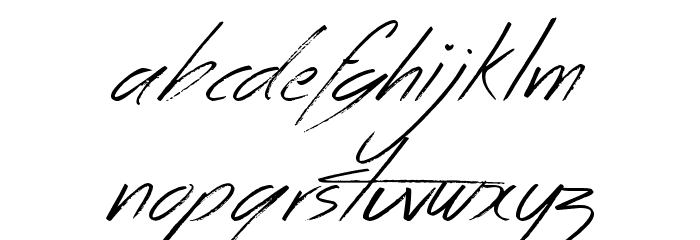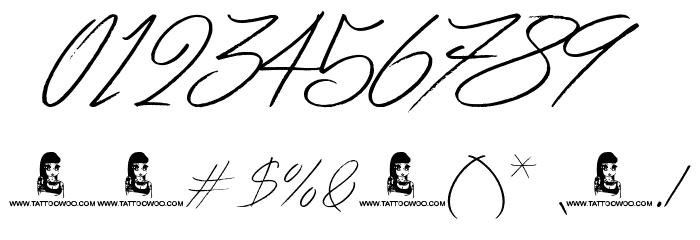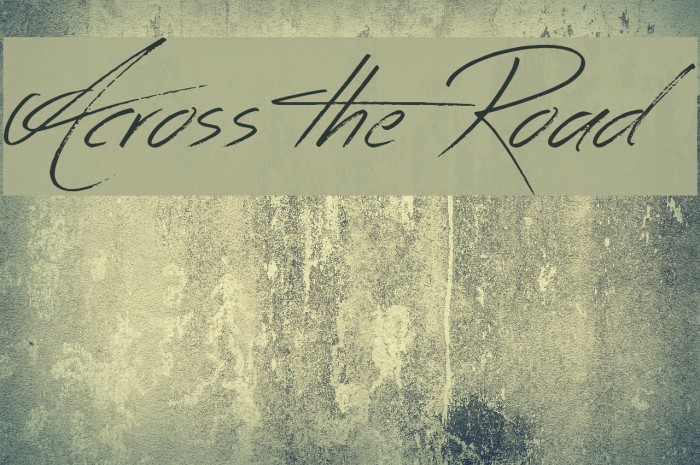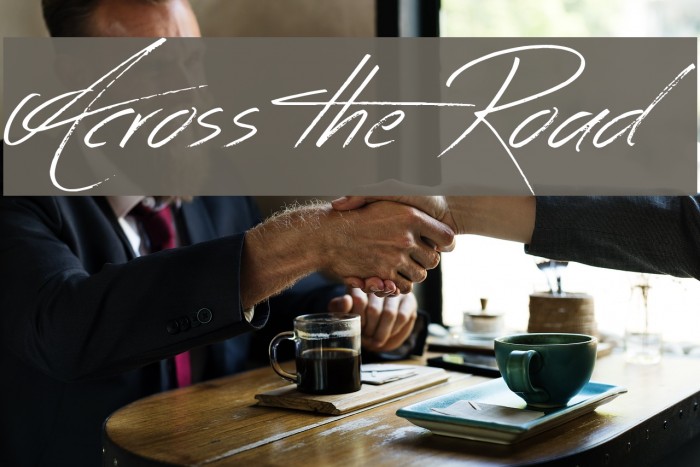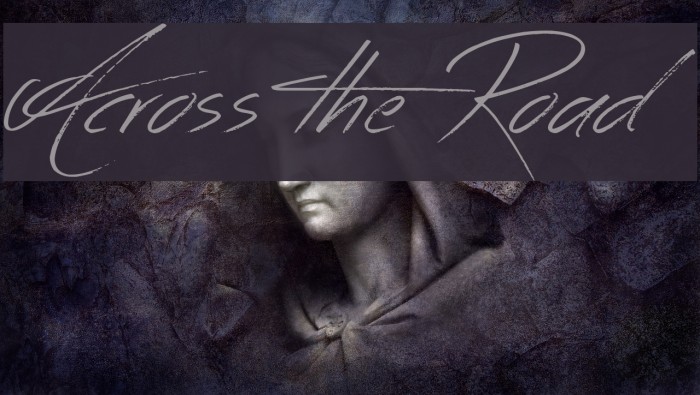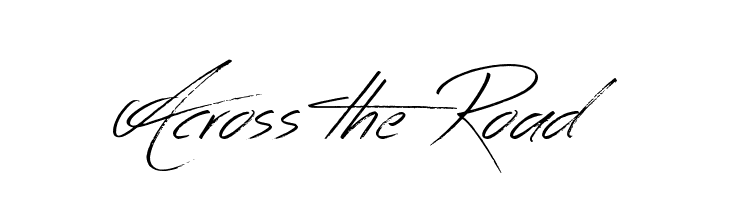
Across the Road Font
This font features a dynamic and expressive handwritten style, characterized by its fluid and sweeping strokes. The letters are elegantly connected, creating a sense of movement and energy. The uppercase letters are bold and prominent, while the lowercase letters maintain a consistent flow. Numbers and special characters are crafted with the same artistic flair, ensuring a cohesive look across all elements. The overall design is both modern and artistic, making it suitable for creative and expressive projects.
A dynamic, expressive handwritten font with fluid strokes.
- Proposed Projects: Ideal for artistic projects, branding, invitations, and expressive design work.
- Overall Style: Modern, Artistic
- Use Case: Logos, Invitations, Artistic Projects